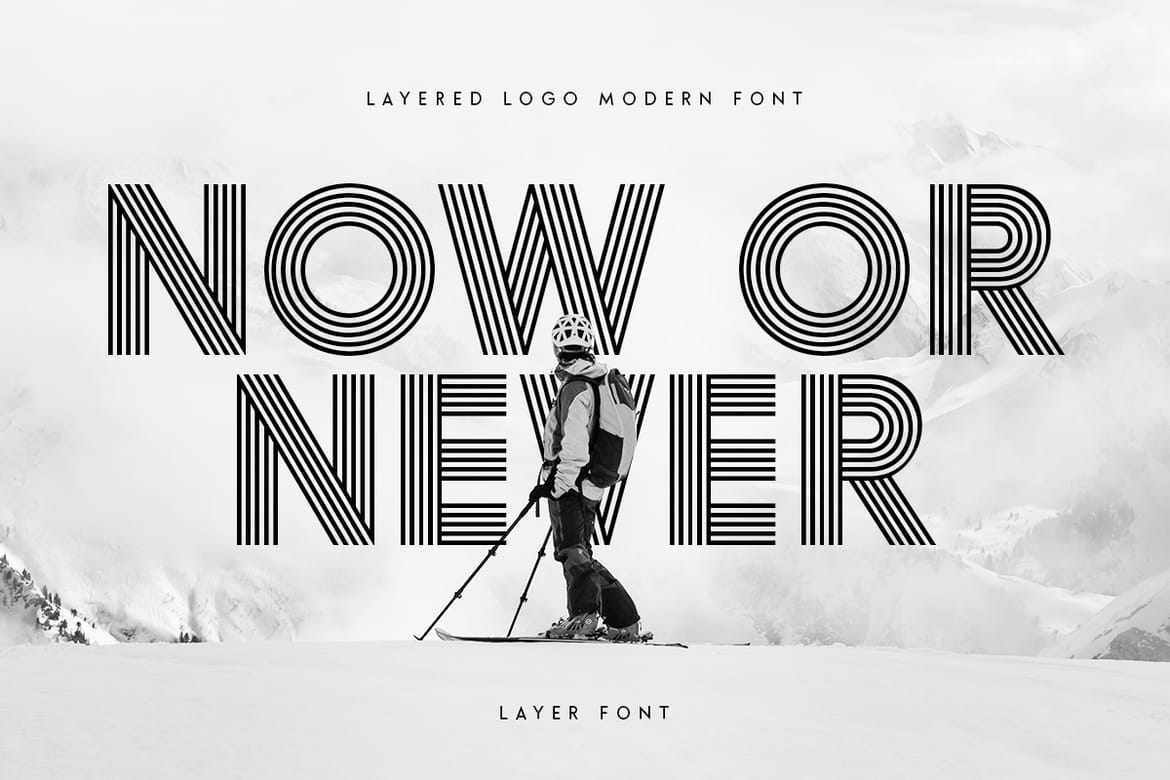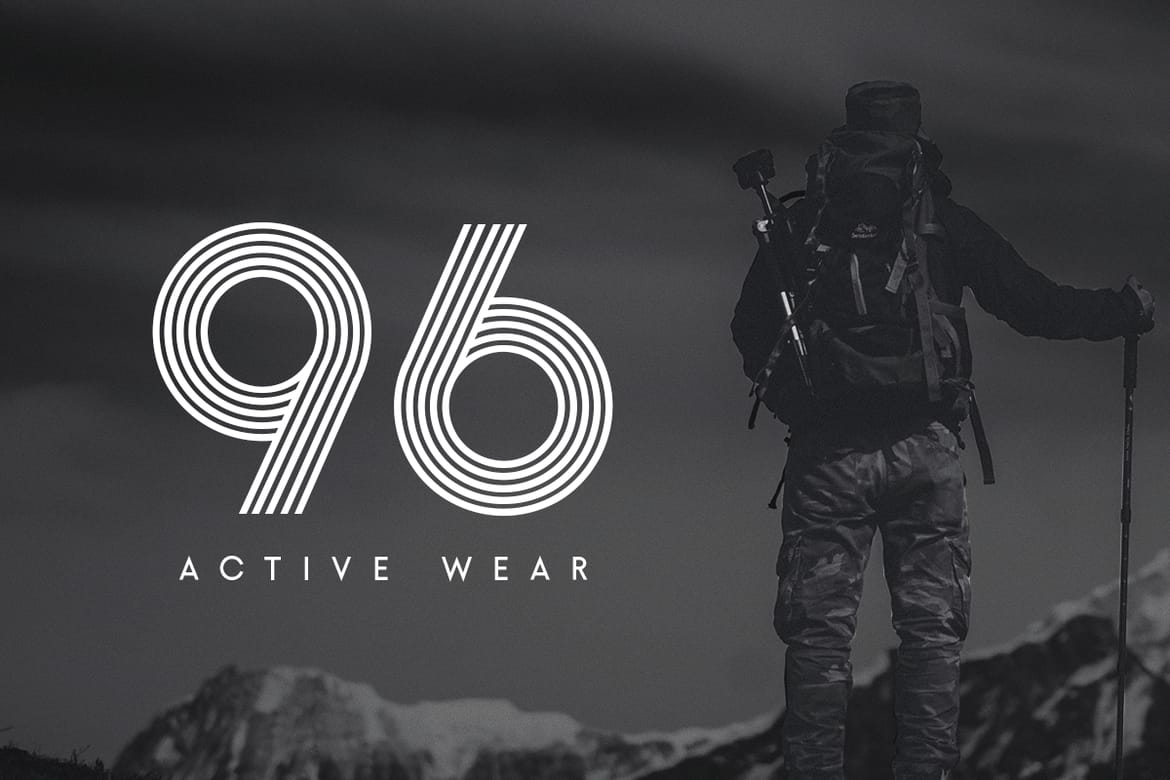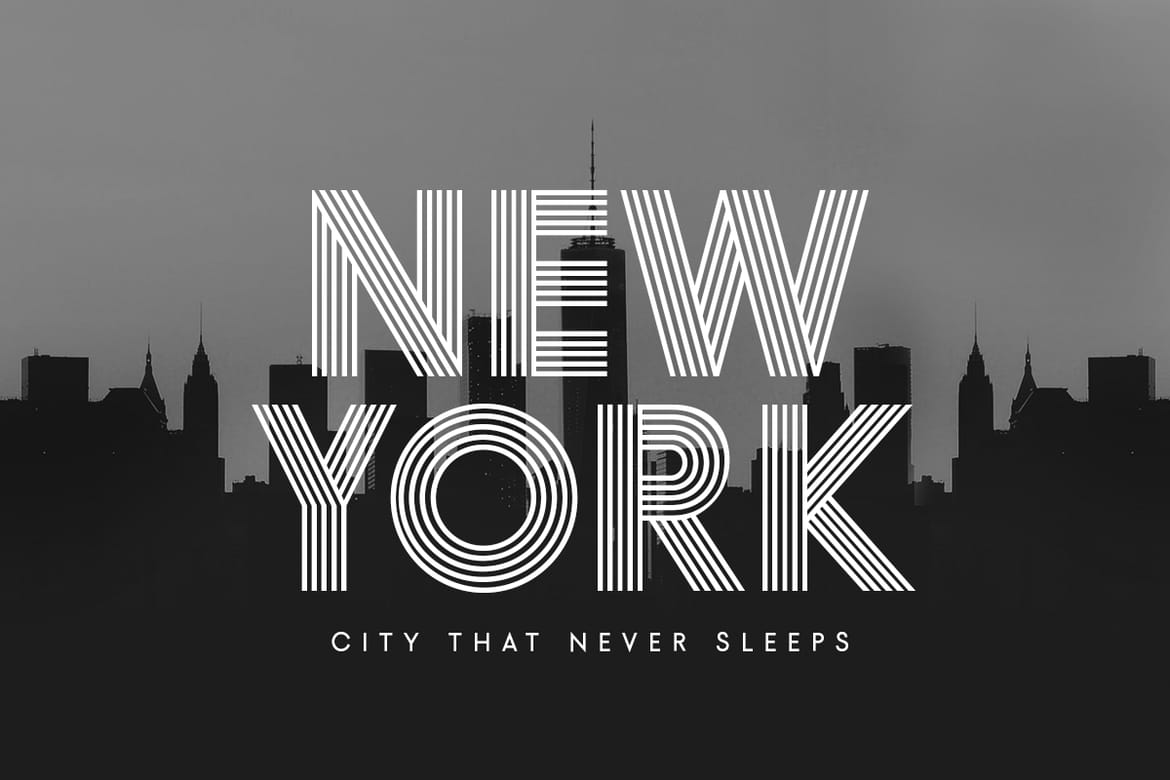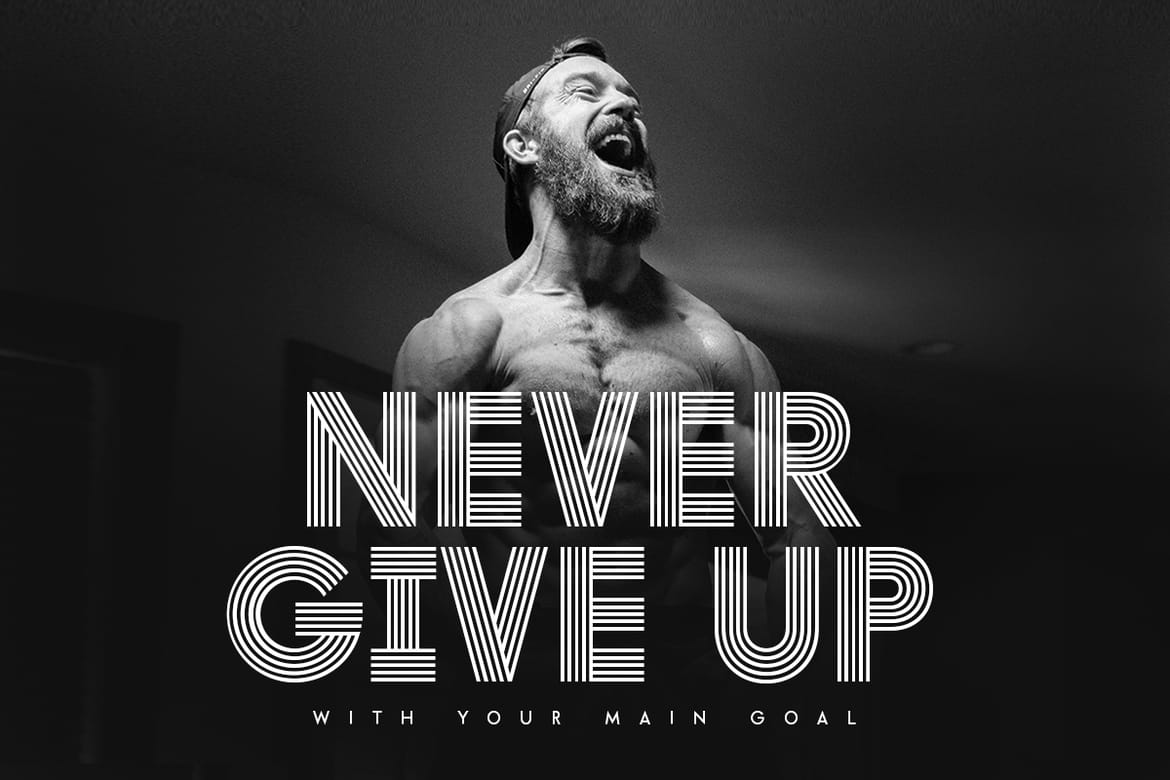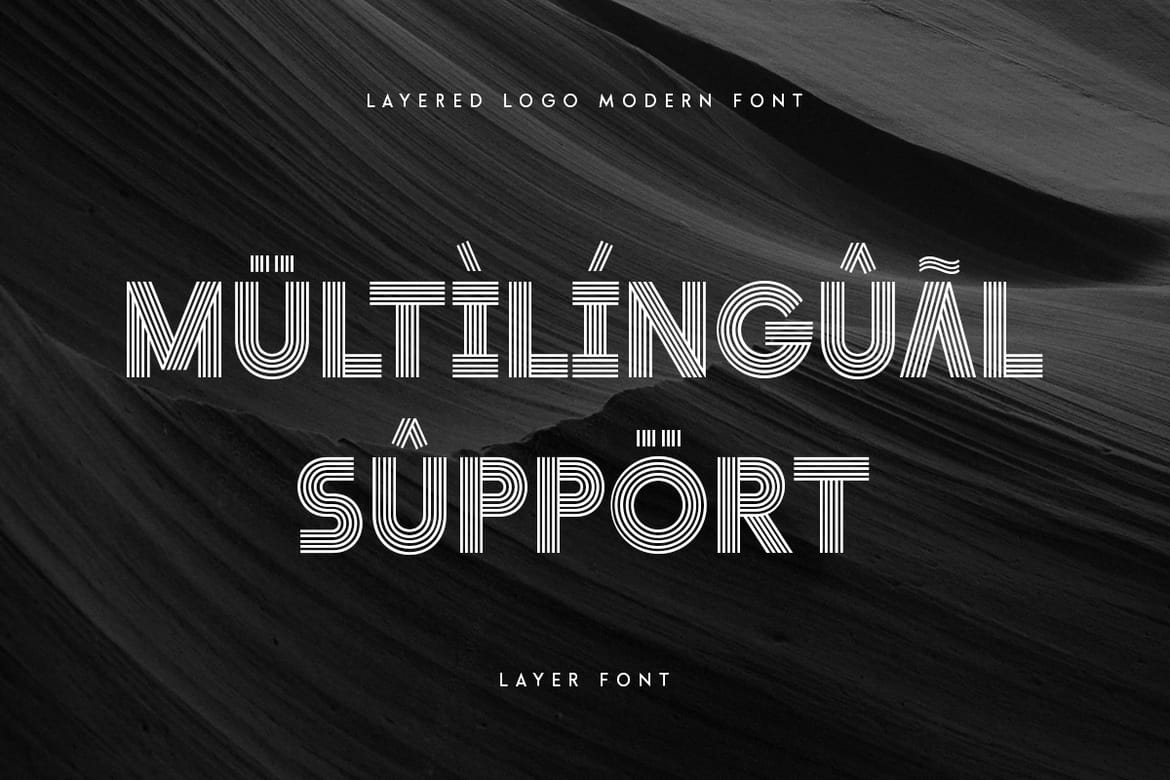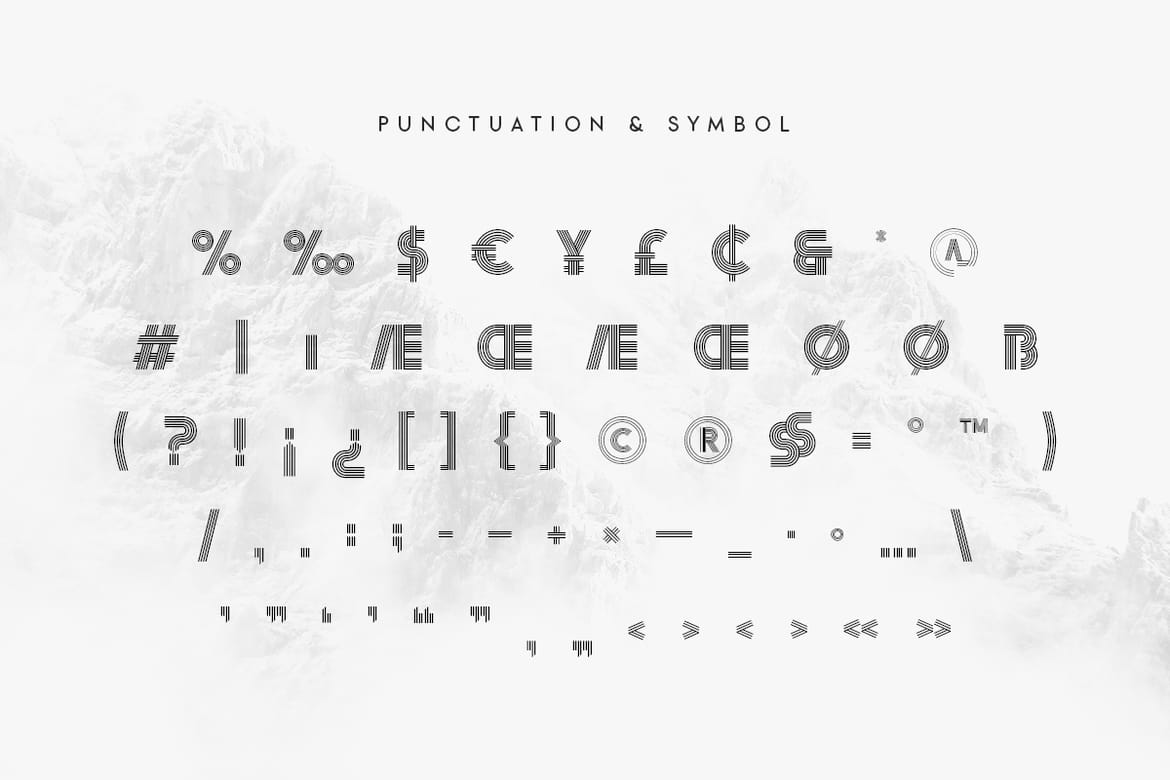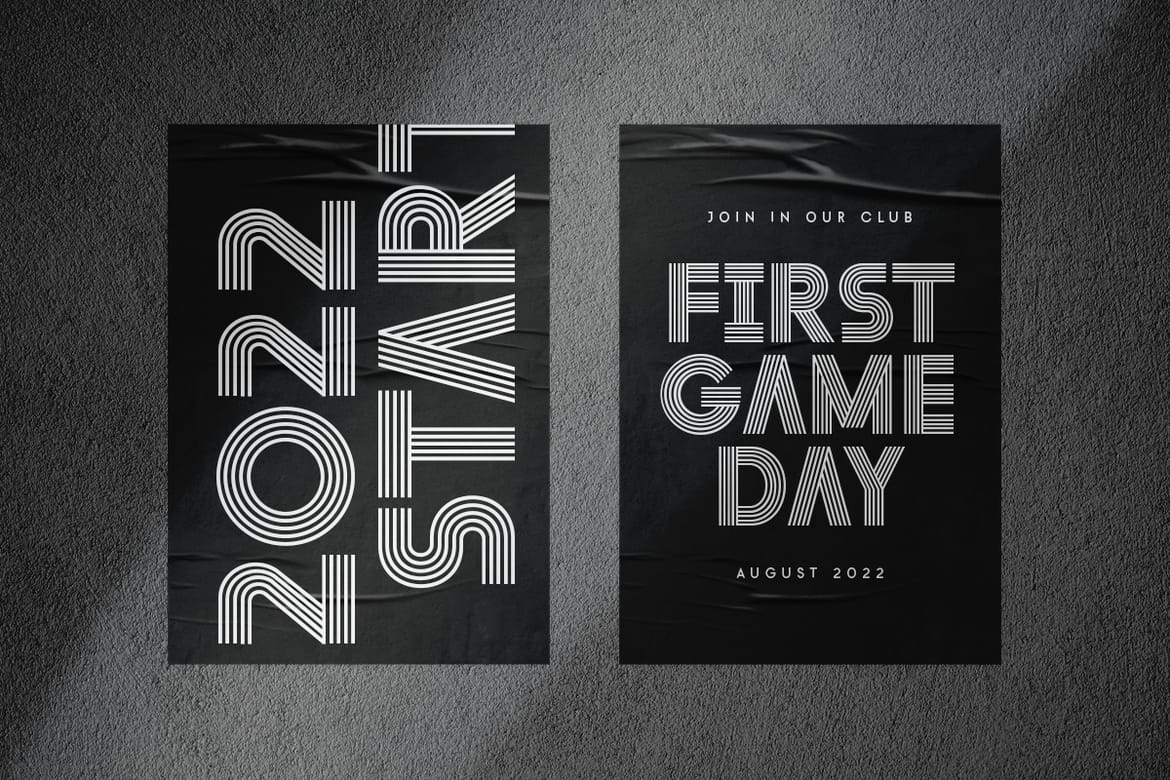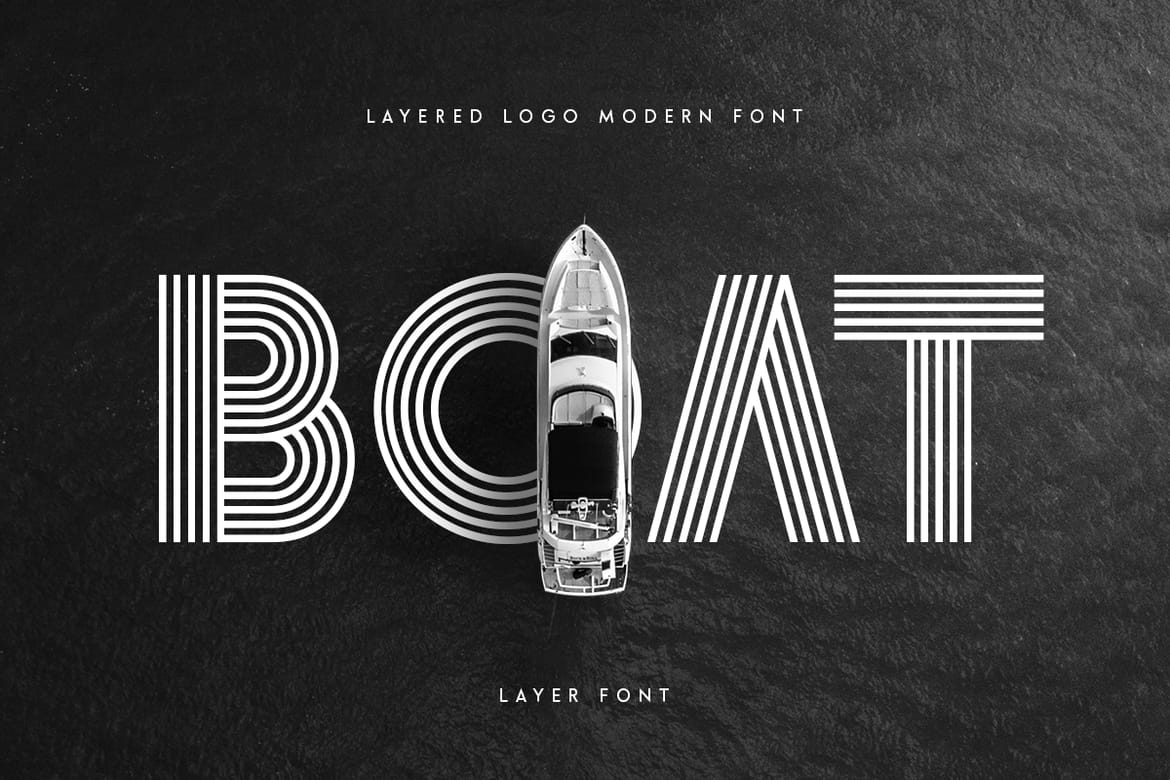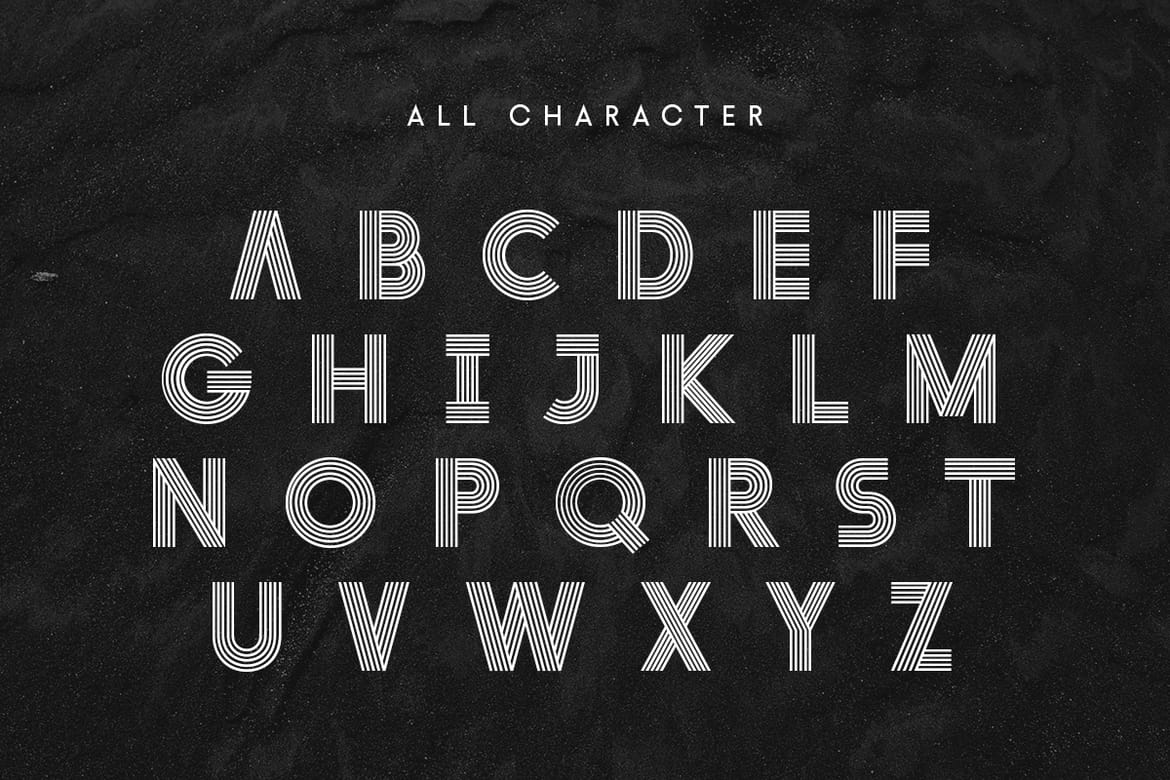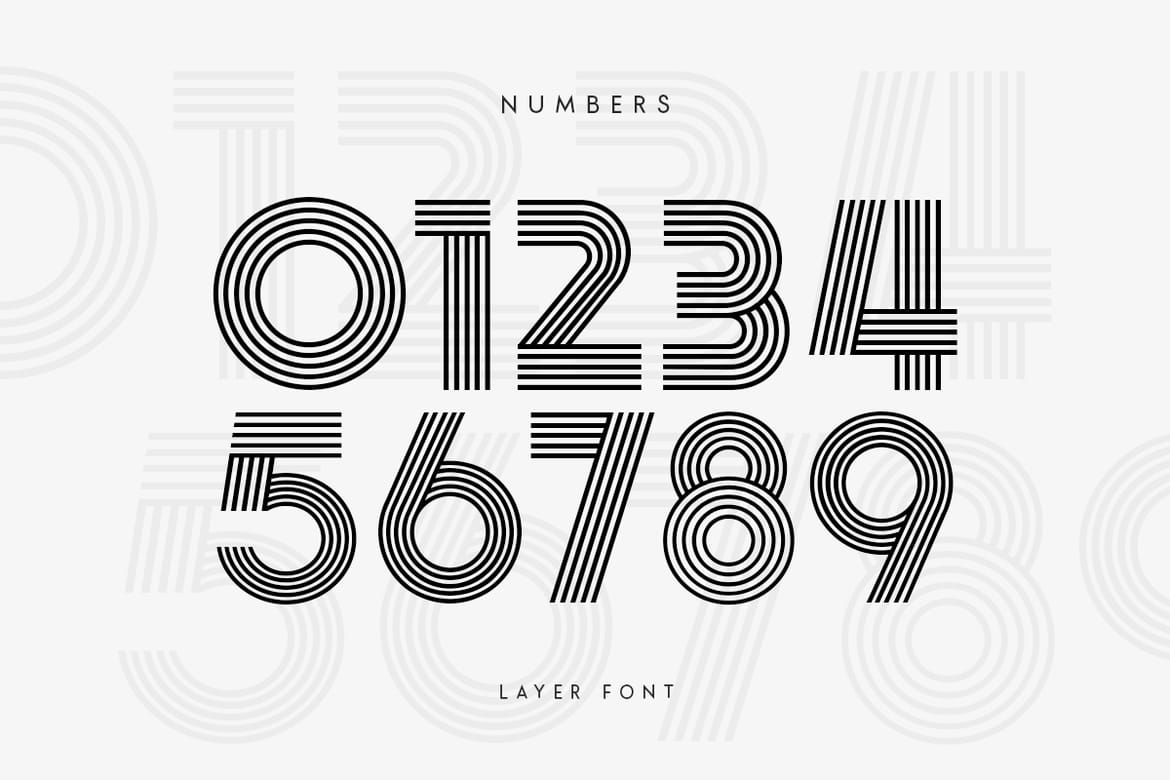
Layer - Layered Logo Modern Font
Layer is a Layered Logo Modern Font that created special for Branding, Title and more stand out typography needs, with extra alternative styles that make your design more memorable. It's so perfect to add your style and headline overview for sport, technology, actions, and fighting theme. And specially for this font, we crafted for bold action style and modern feels so enjoy to create any project that will show your main idea out. Layer - Layered Logo Modern Font ready with: Font variation characters prepared to get creative alternatives Preview as a inspirations that you can do with Layer font Ready with All Uppercase characters Wish you enjoy our font. :)
• Bold layered sport logo style
• Alternative font variation characters
• Full uppercase branding typography
Layer - Layered Logo Modern Font